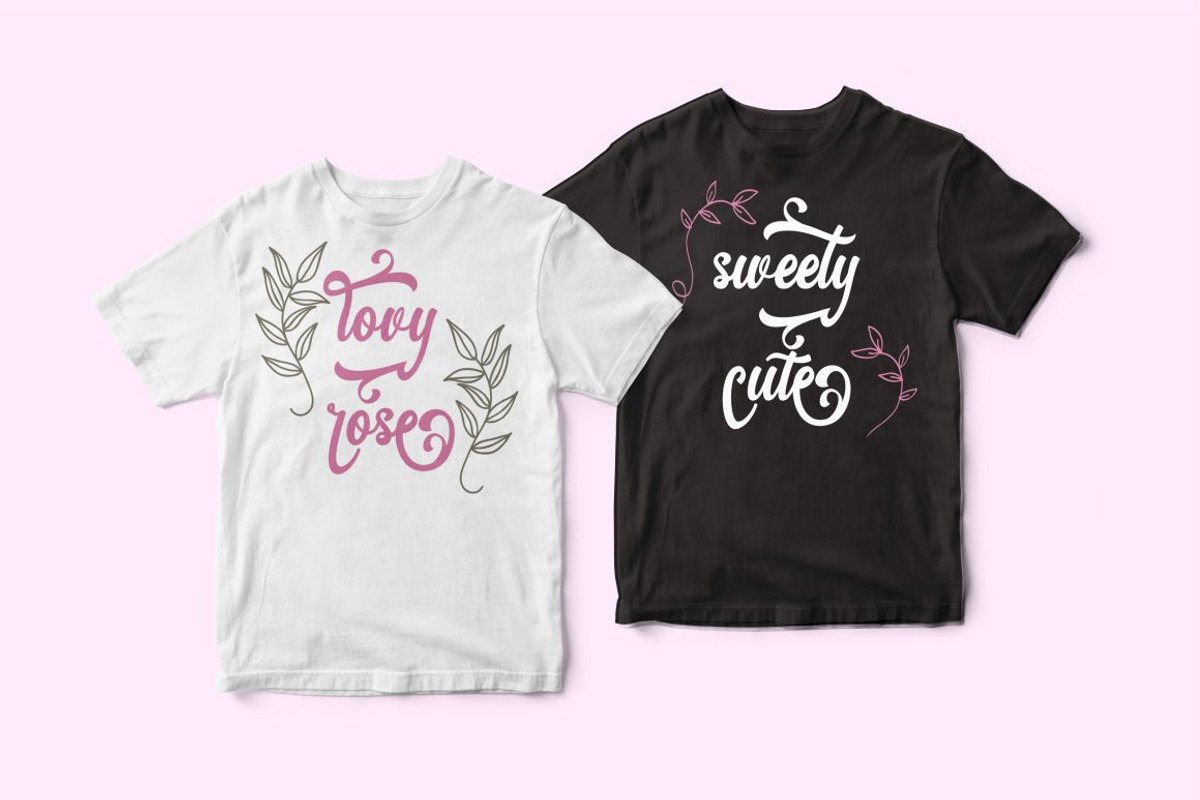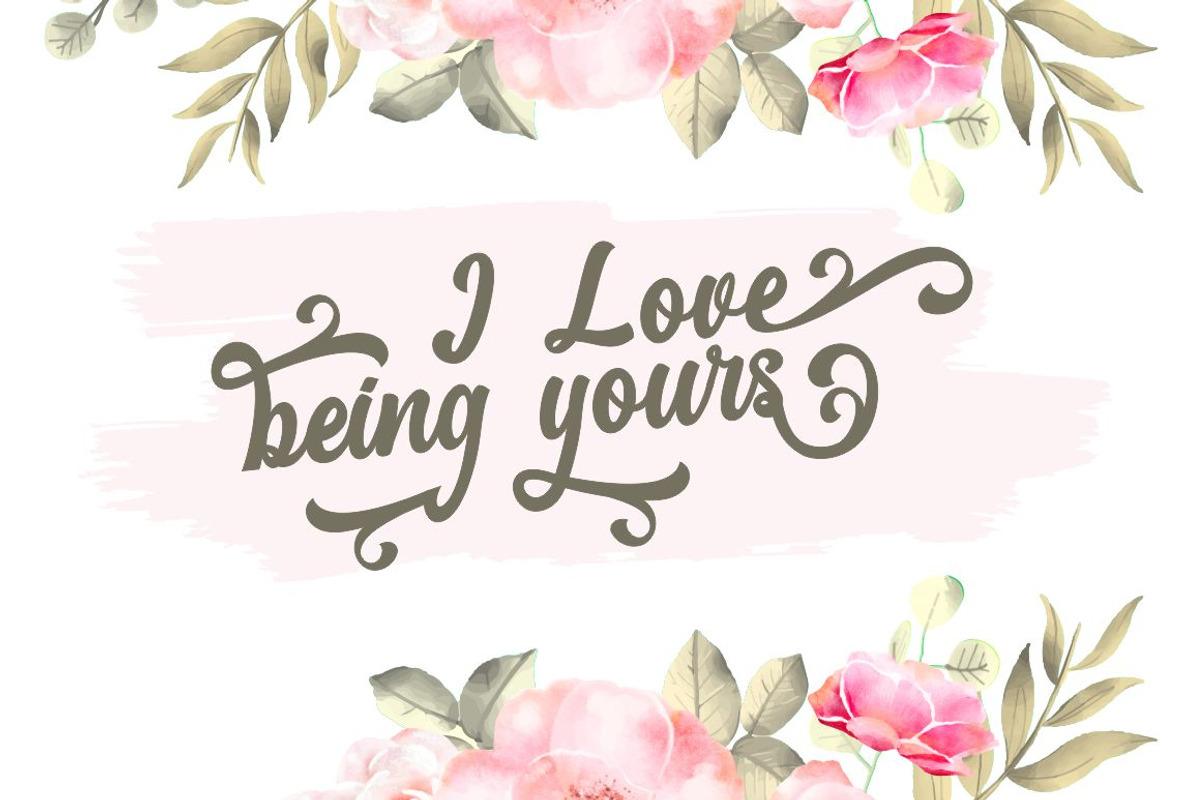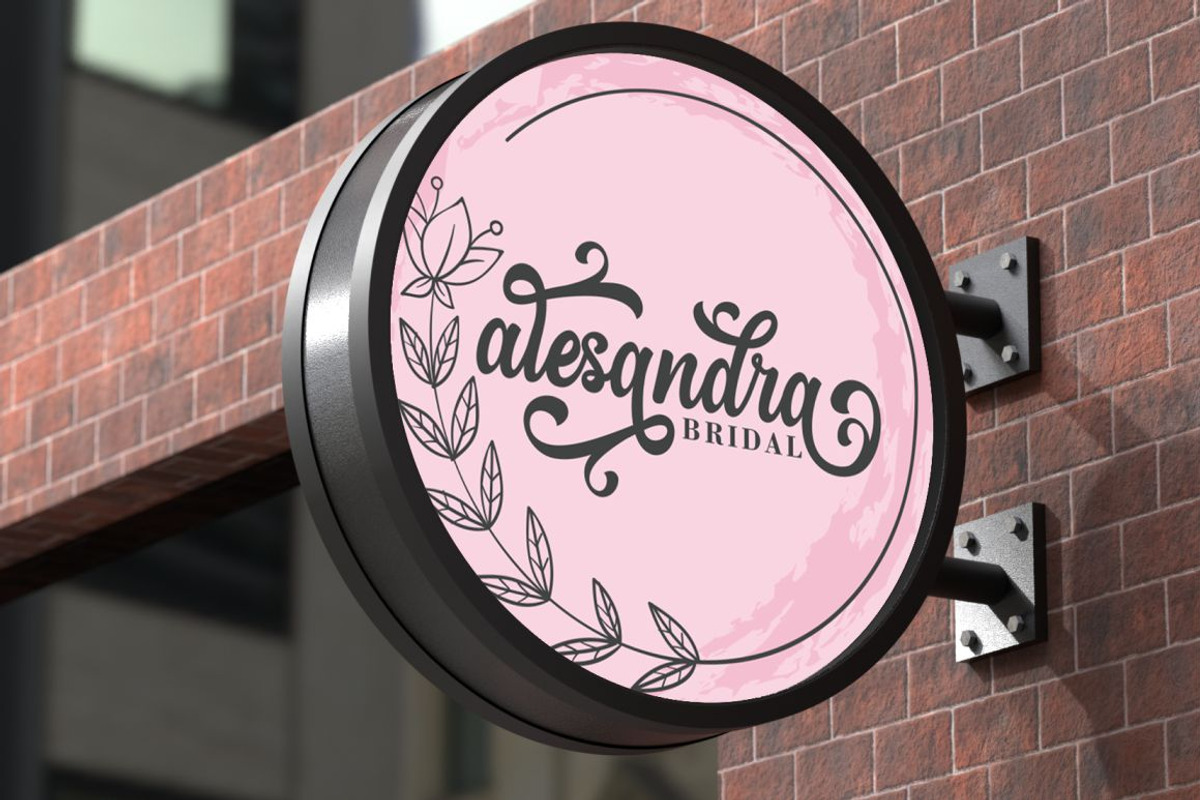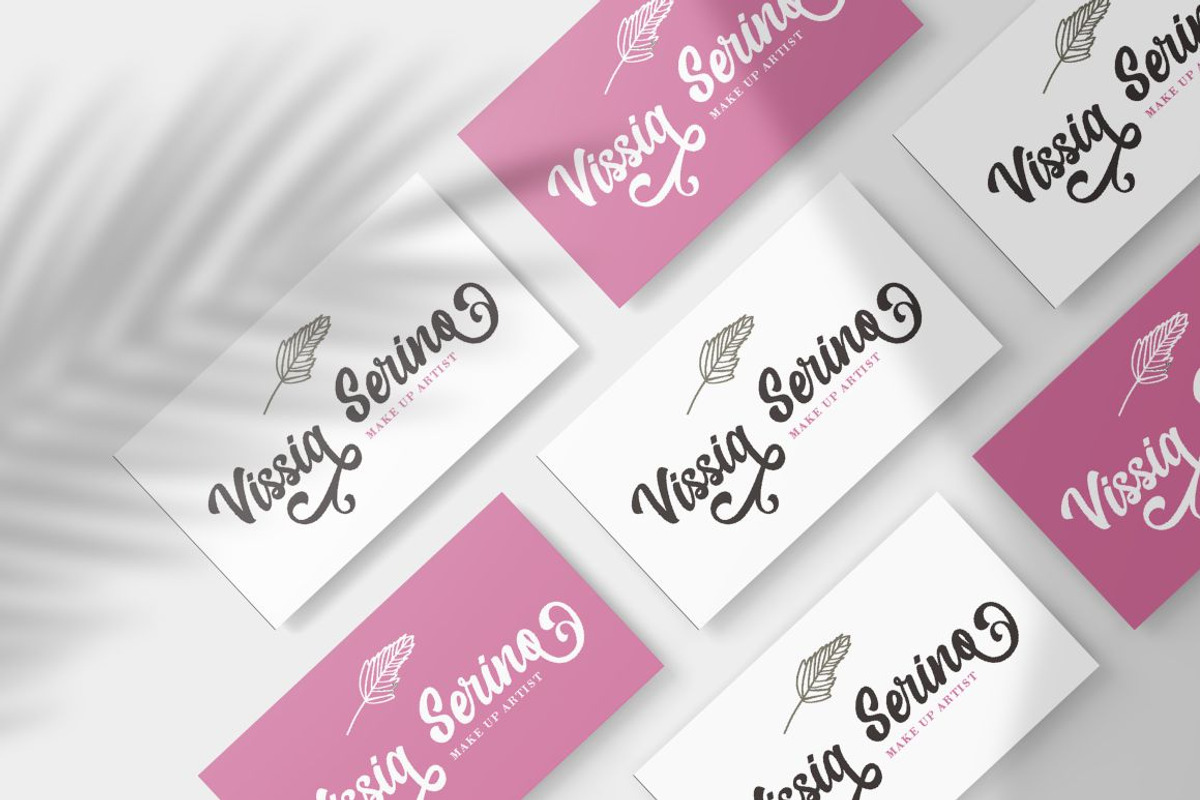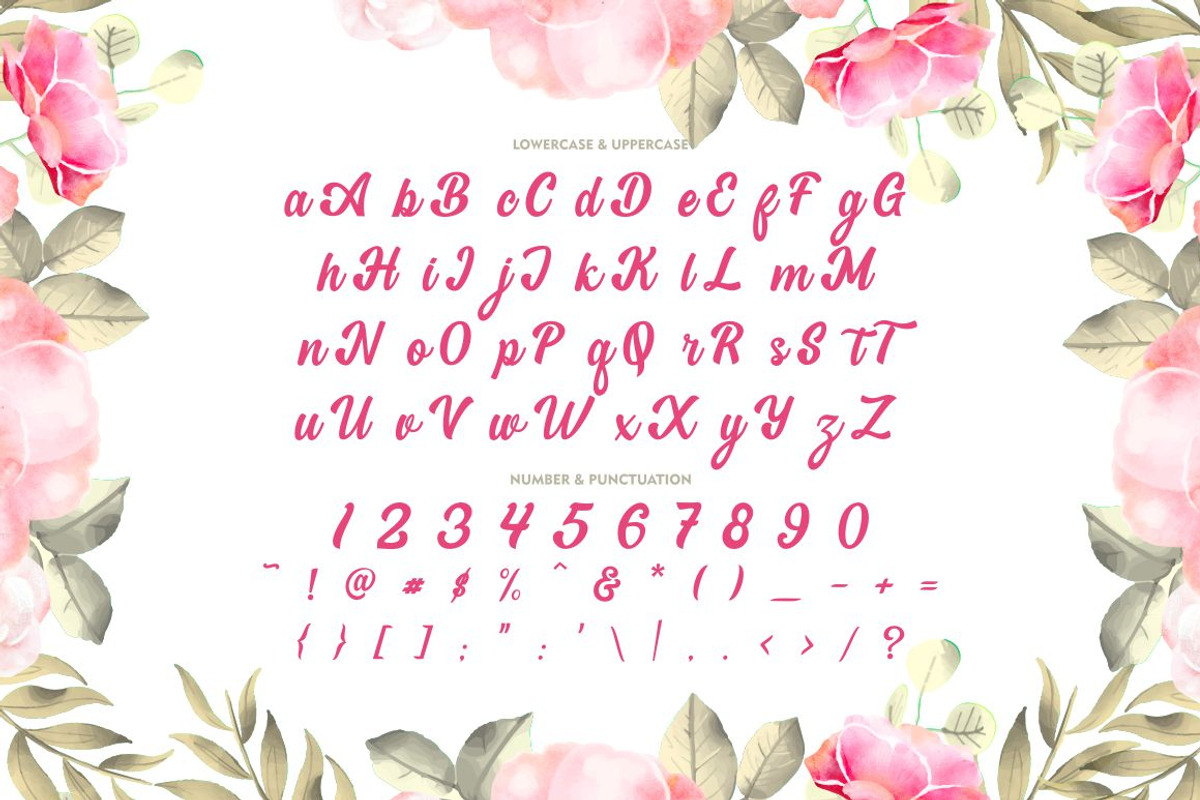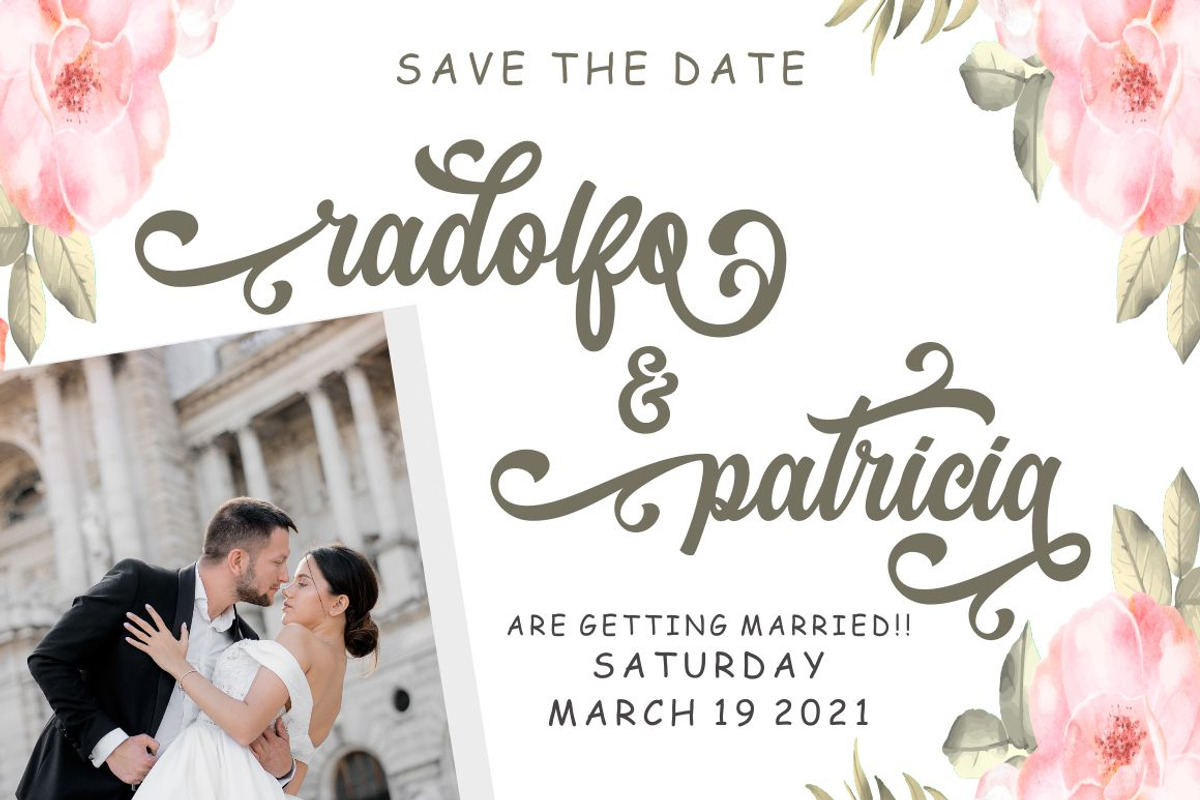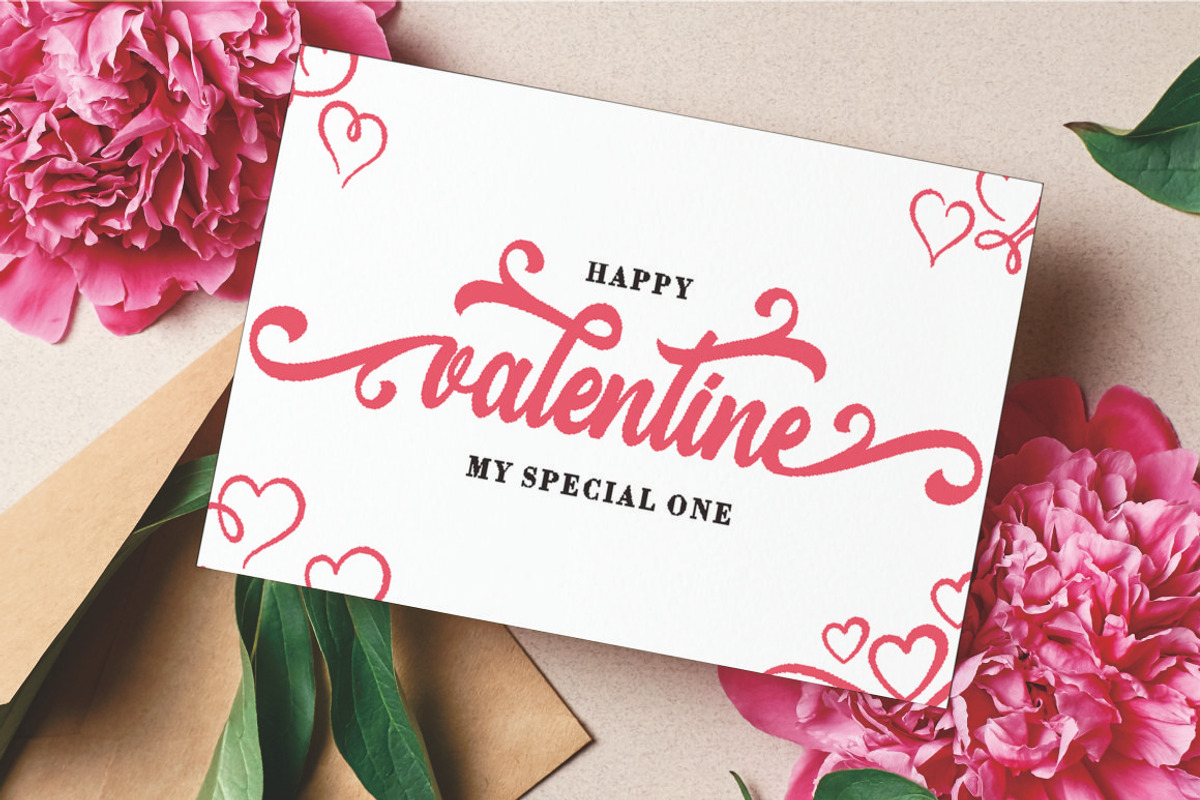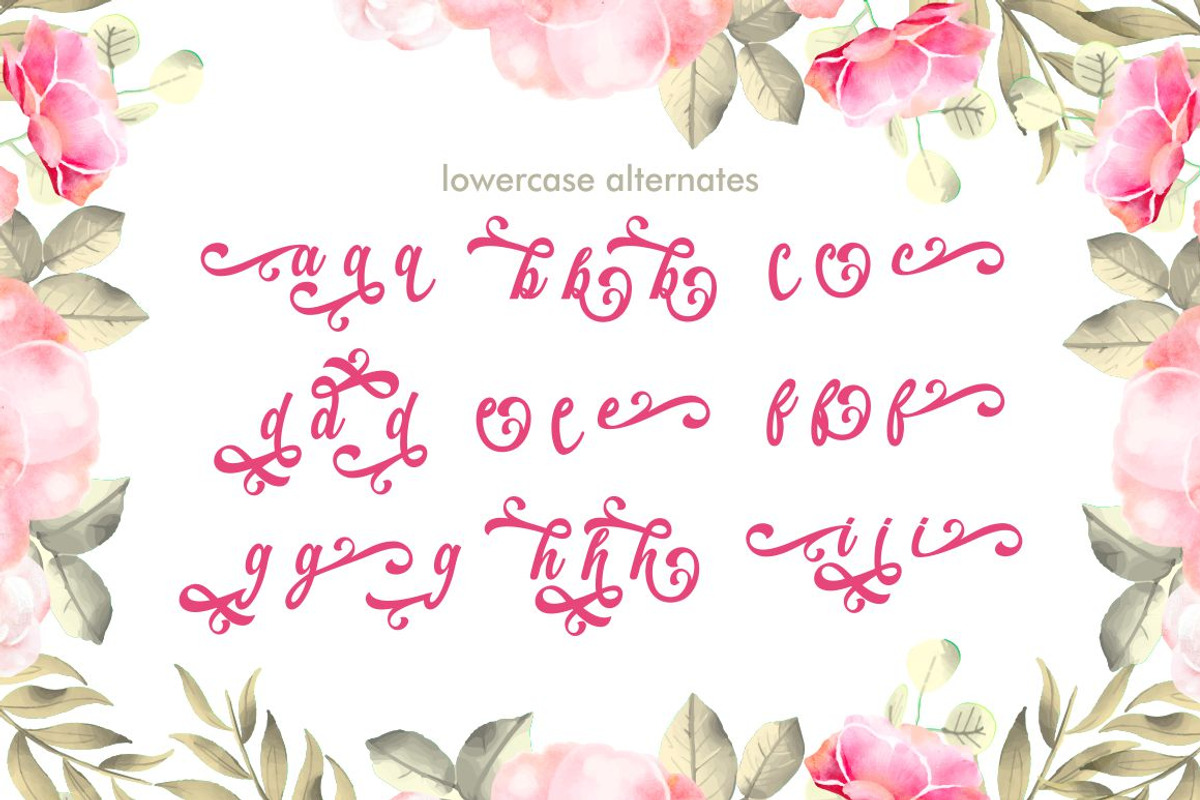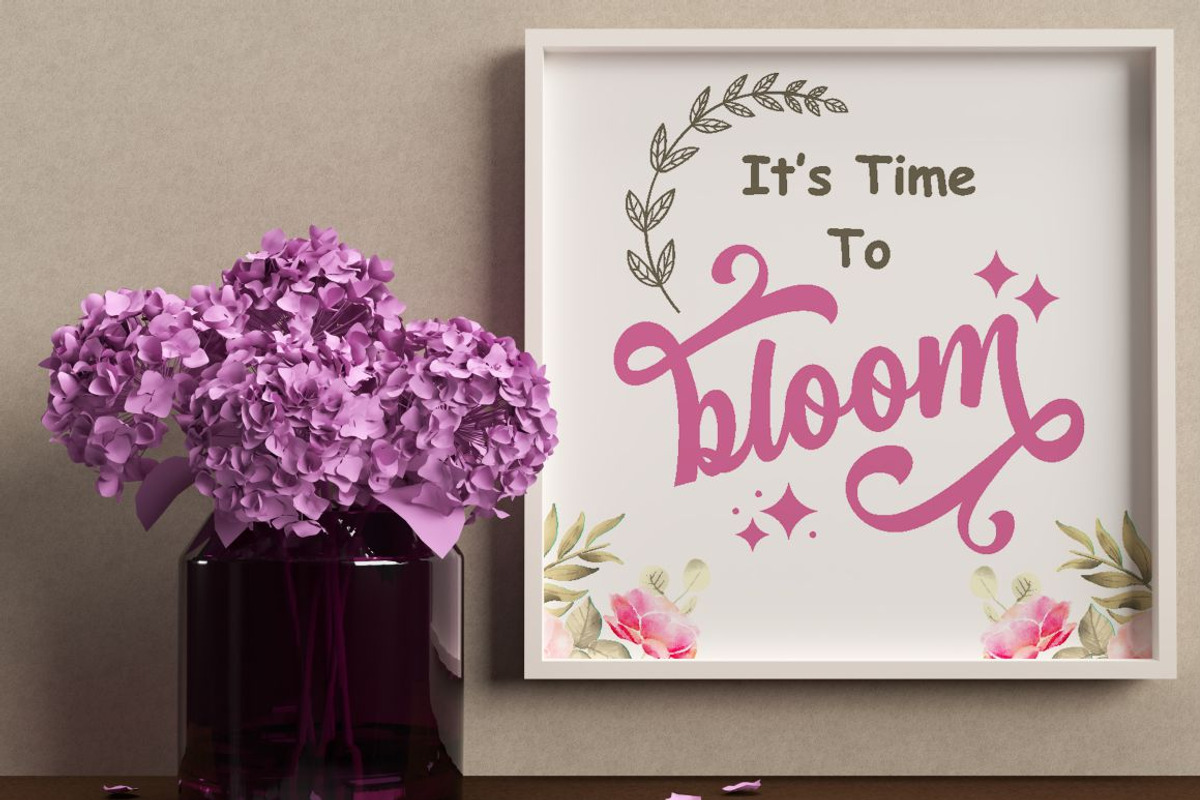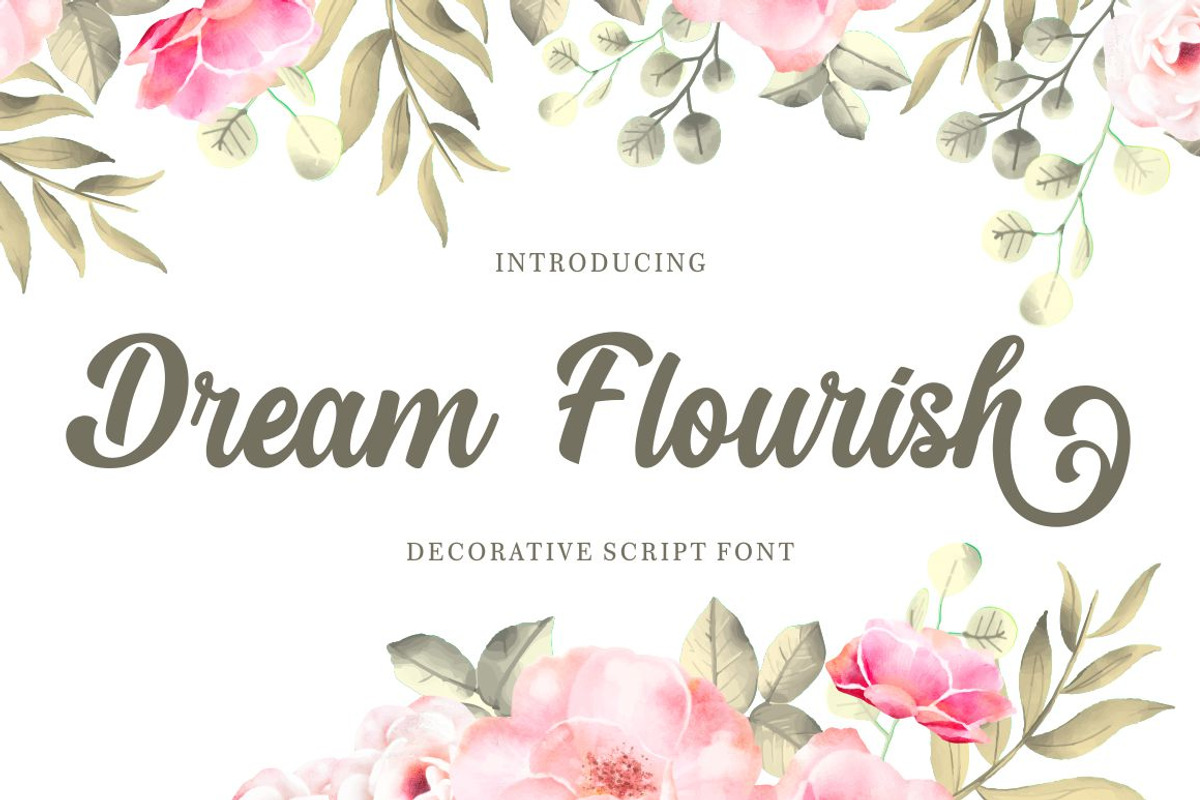
Dream Flourish - Decorative Script
Dream Flourish
Dream Flourish is a beautiful, attractive and luxurious font with a very unique swash. Swash in the form of a very beautiful flourish. This font is compatible with various themes and concepts, such as wedding themes, fun, luxury and others. This font can be combined with additional elements such as watercolor designs, clipart and sketches. This font is suitable for your projects such as logos, wedding invitations, branding, landing pages, apparel, posters, headlines, greeting cards, invitation cards, social media, crafting, quote and more. This font can be used and supported in various programs and OS, such as procreate, cricut, windows, macOS and others. This font is also support multi language.
Comes with feature :
- Opentype (Alternates And Ligatures)
- Number, Punctuation And Symbols
- Multilanguage Support.